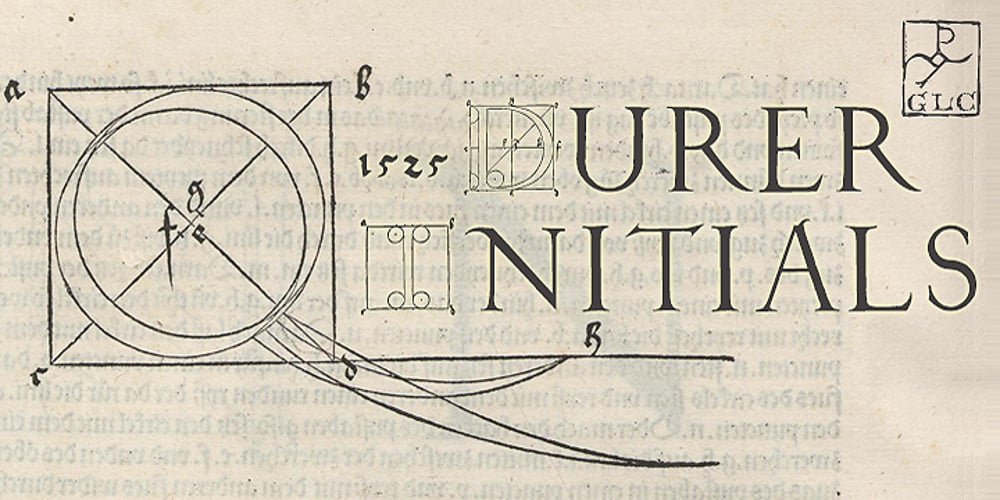
1525 Durer Initials
1525 Durer Initials font
1525 Durer Initials Font Family was designed by Gilles Le Corre and published by GLC. 1525 Durer Initials contains 1 styles and family package options. In 1525, Albrecht Dürer, the well known German great artist, was publishing the so-called “Underweysung der Messung mit dem Zirckel und Richtscheyt”, printed in Nuremberg. This handbook explained with numeral figures how to draw with a compass and ruler. A large part is devoted to the drawing of Roman characters, which can be used as decorative initials. We are offering two complete historical initial sets and also have entirely redrawn the missing letters: J, U and W, Eth, Lslash, Thorn and Oslash in the two forms, using the Dürer style. The font may be used with all our Humane and Garalde fonts, like 1543 Humane Jenson or 1592 GLC Garamond and others from the GLC foundry catalog.